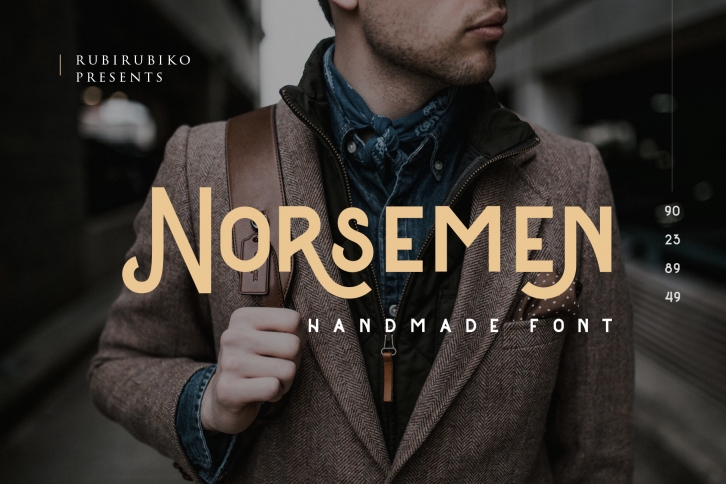
Norsemen is a stunning display font-borrowing vintage elements, Norsemen works them in order to create something brand new and completely modern. Use this font across a wide range of designs for a truly unique look.